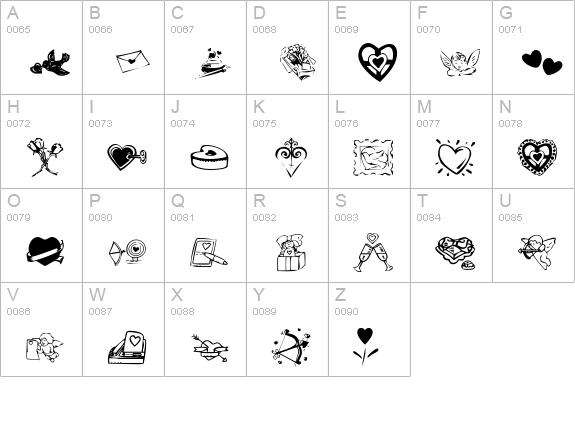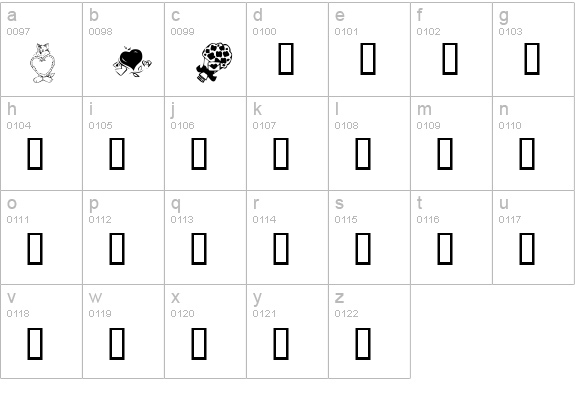
KR Valentine 2003 Font Details
KR Valentine 2003 font is a charming and playful typeface perfect for adding a touch of love and whimsy to your design projects. With its unique hand-drawn style and heart accents, this font is sure to capture the essence of Valentine's Day all year round. Whether you're creating greeting cards, posters, or social media graphics, KR Valentine 2003 font will bring a sweet and romantic touch to your designs. Best of all, KR Valentine 2003 font is available for free download at FontsMarket.com. Simply visit the website to access this delightful font and start spreading the love with your creative projects. Don't miss out on this wonderful opportunity to add a touch of romance to your designs with KR Valentine 2003 font, available for free at FontsMarket.com.